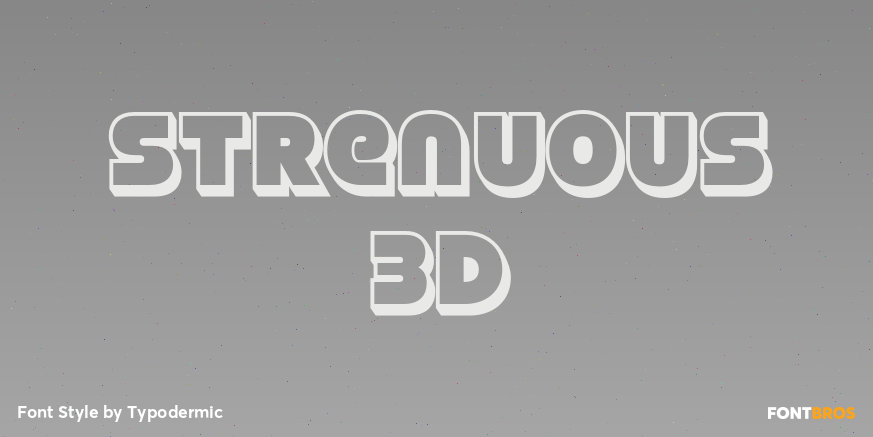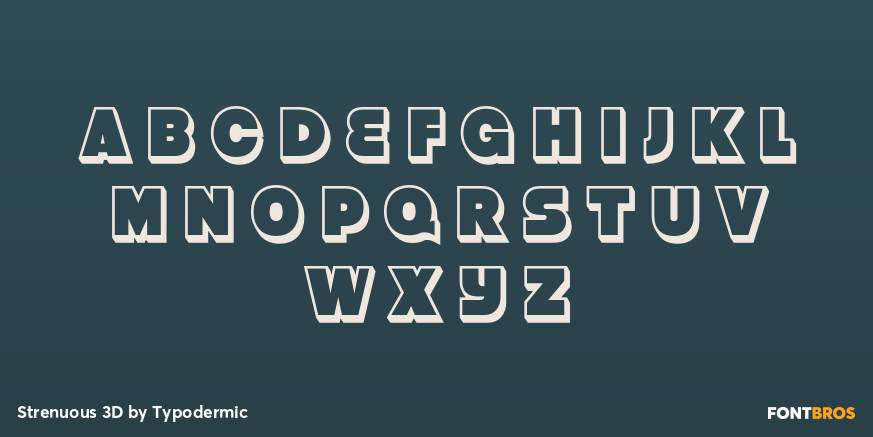
Strenuous 3D
Buy NowStrenuous 3D gives the family's compact 1970s unicase forms an open face with a solid shadow offset down and to the right. The built-in outline-and-shadow construction creates immediate one-color depth while retaining Strenuous's rounded geometry, alternate forms, and distinctive shared-height rhythm.
Use Strenuous 3D for film and series titles, disco and funk reissues, nightlife promotions, fashion campaigns, retro-electronics packaging, and large event graphics that need a dimensional period treatment. It works best for short words, names, dates, and numerals at generous sizes, where the open face and shadow remain separate. Use the ordinary Strenuous weights for secondary display text and supporting information.